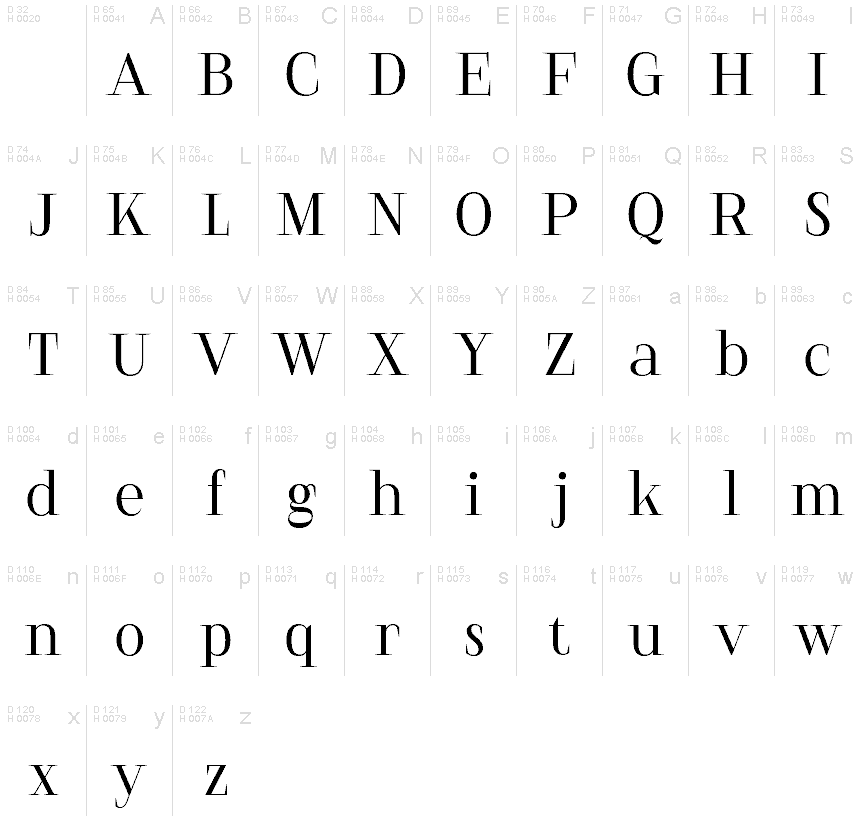
CS Charles Regular Demo
CS Charles font by Craft Supply Co. is an exquisite serif that brings sophistication and elegance to any project. This formal typeface carries a classic presence yet simultaneously feels right at home in modern design projects thanks to its versatile traits.